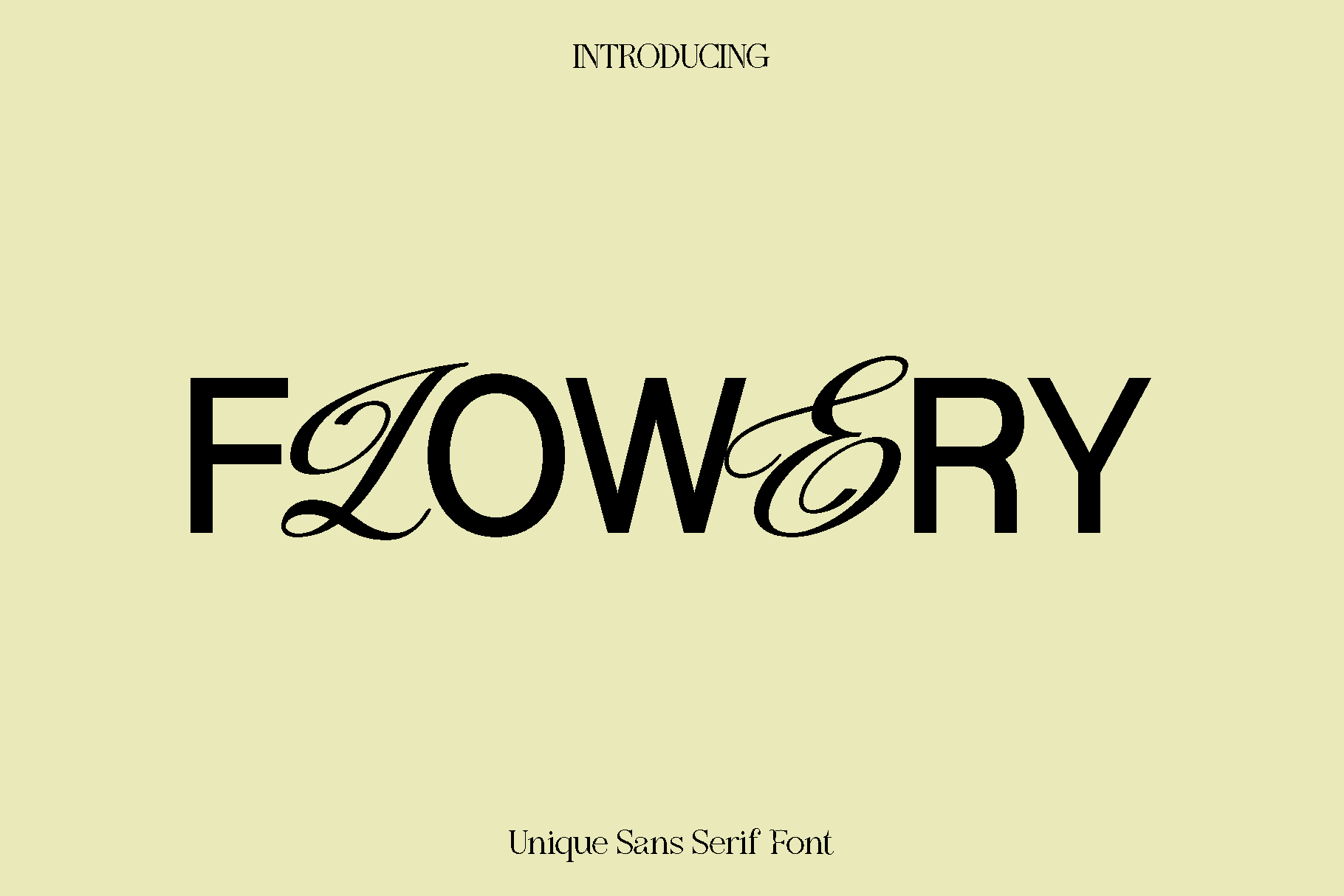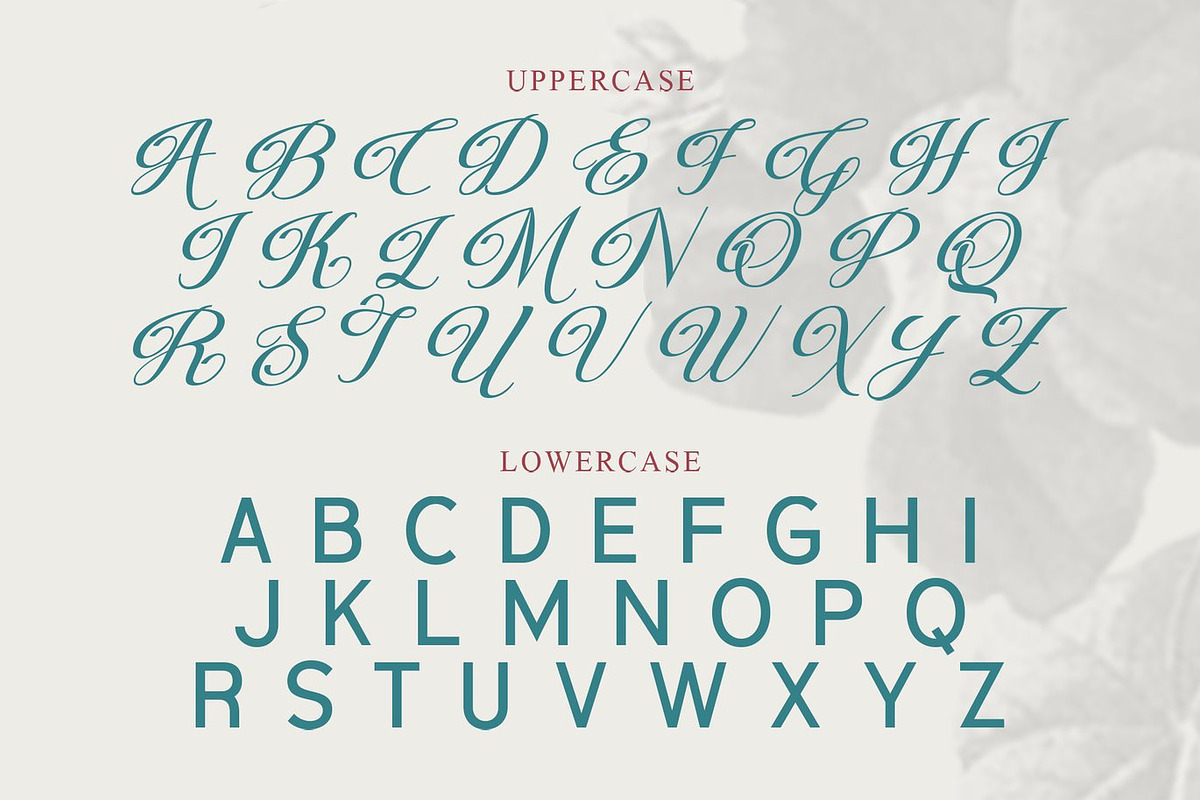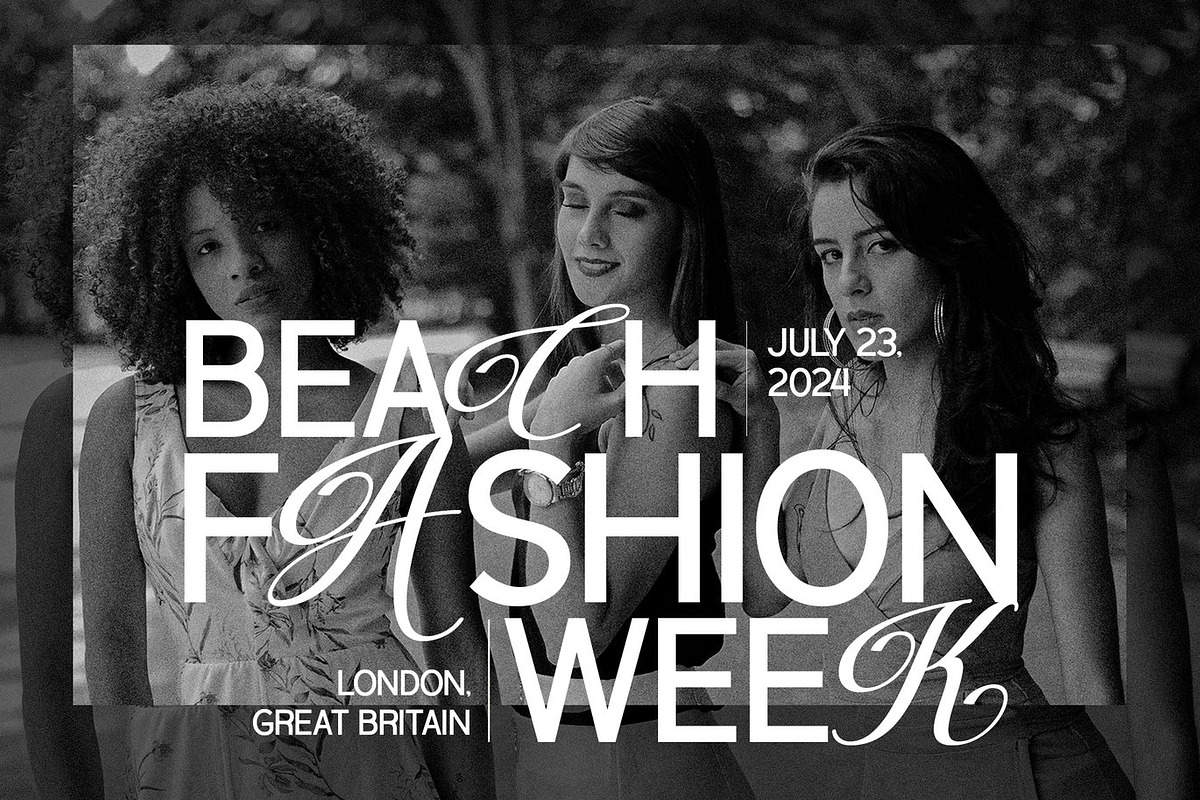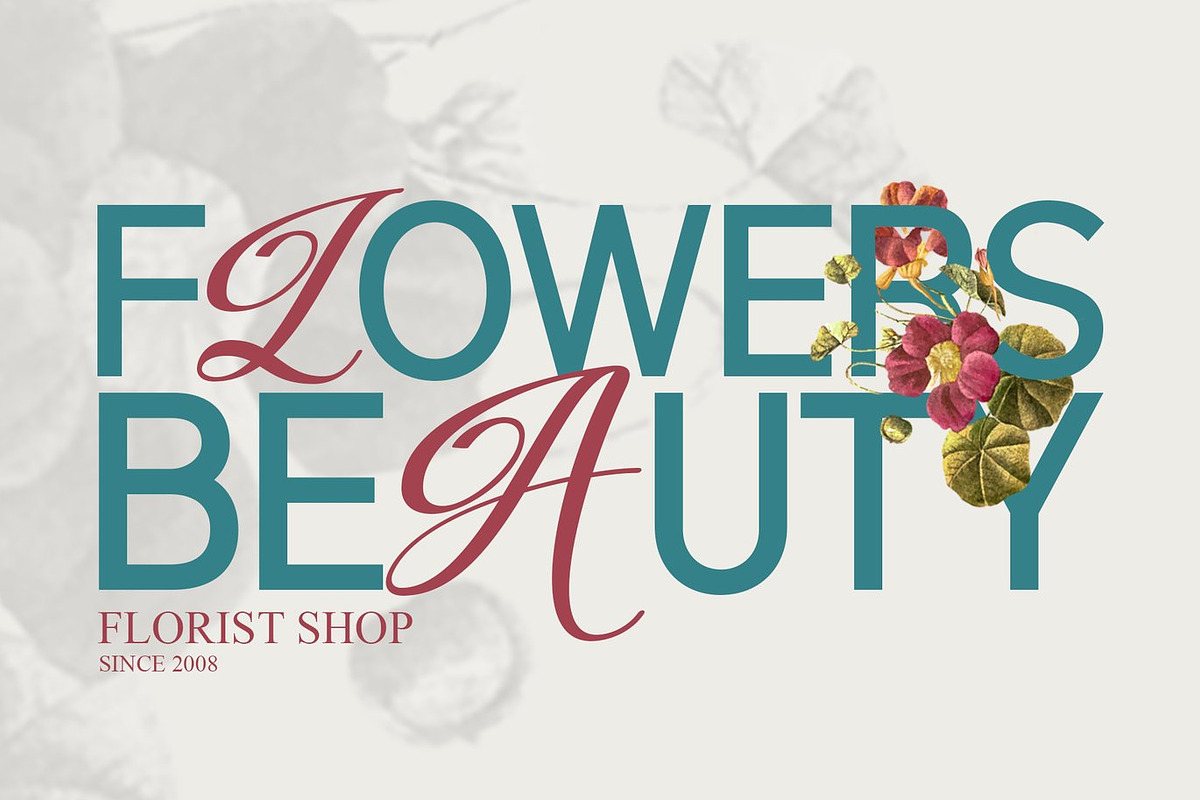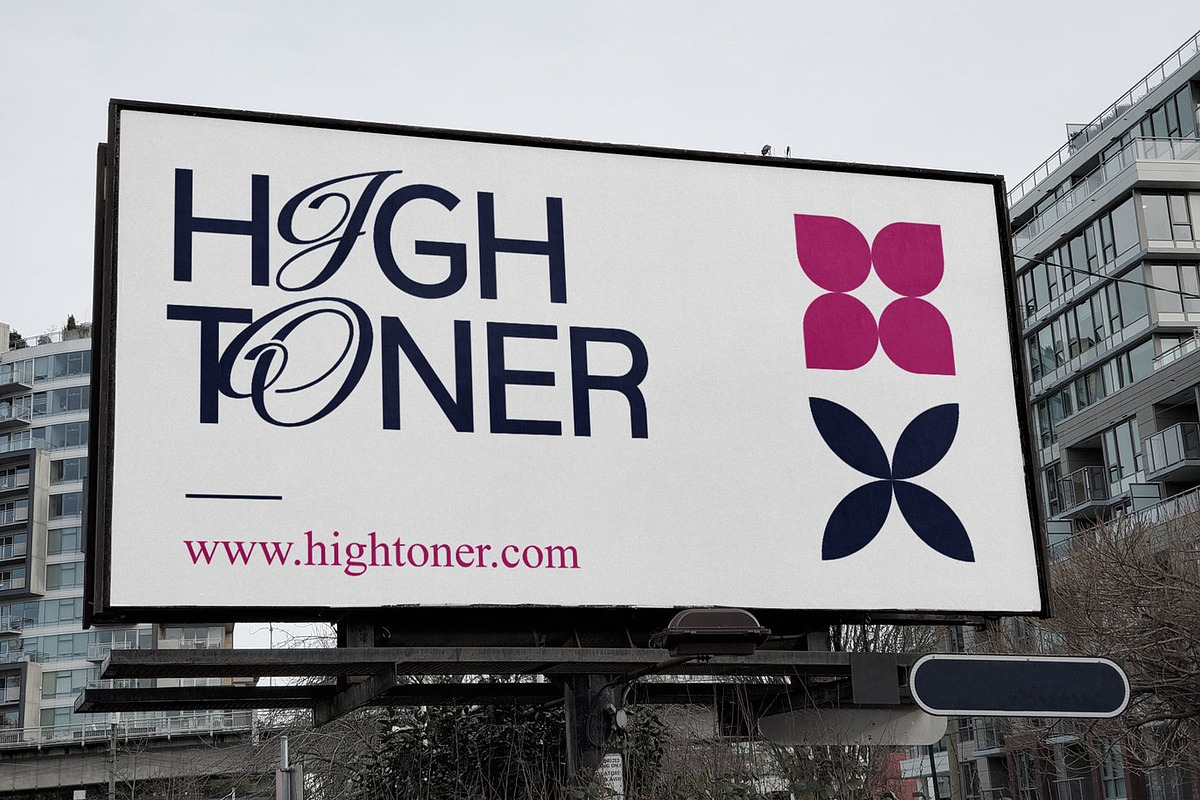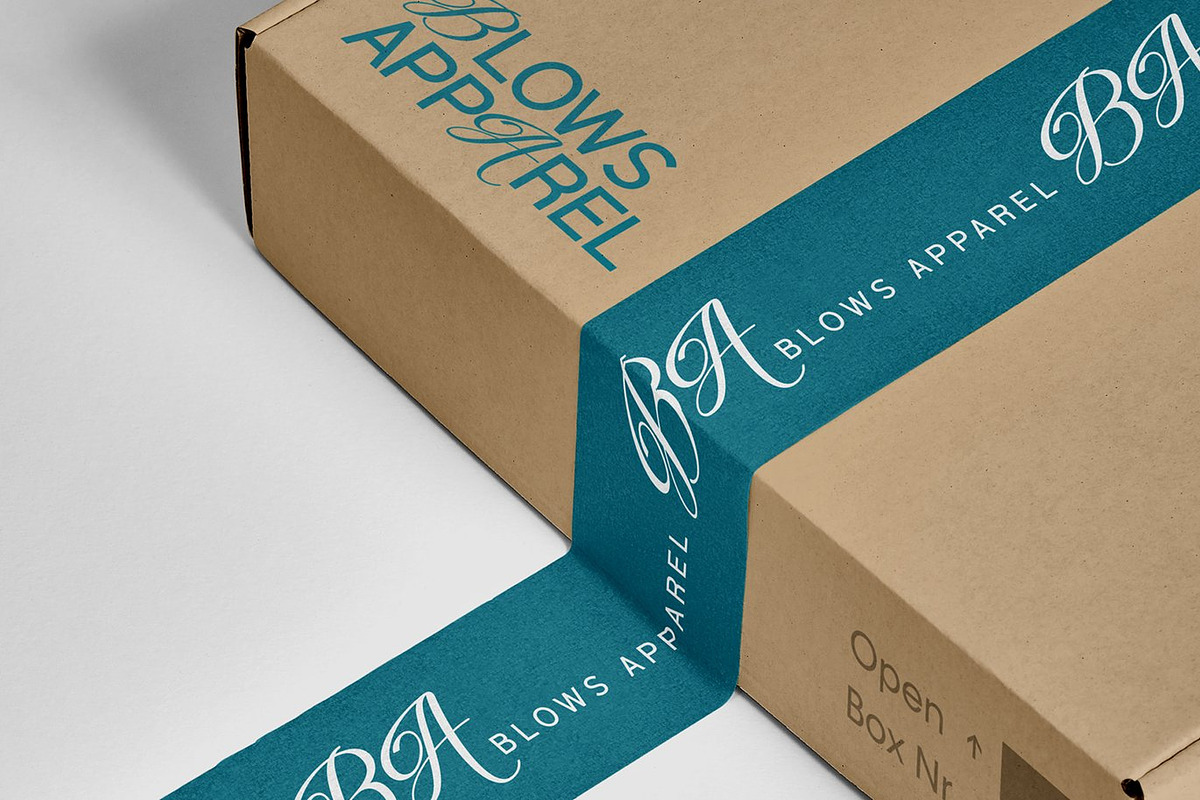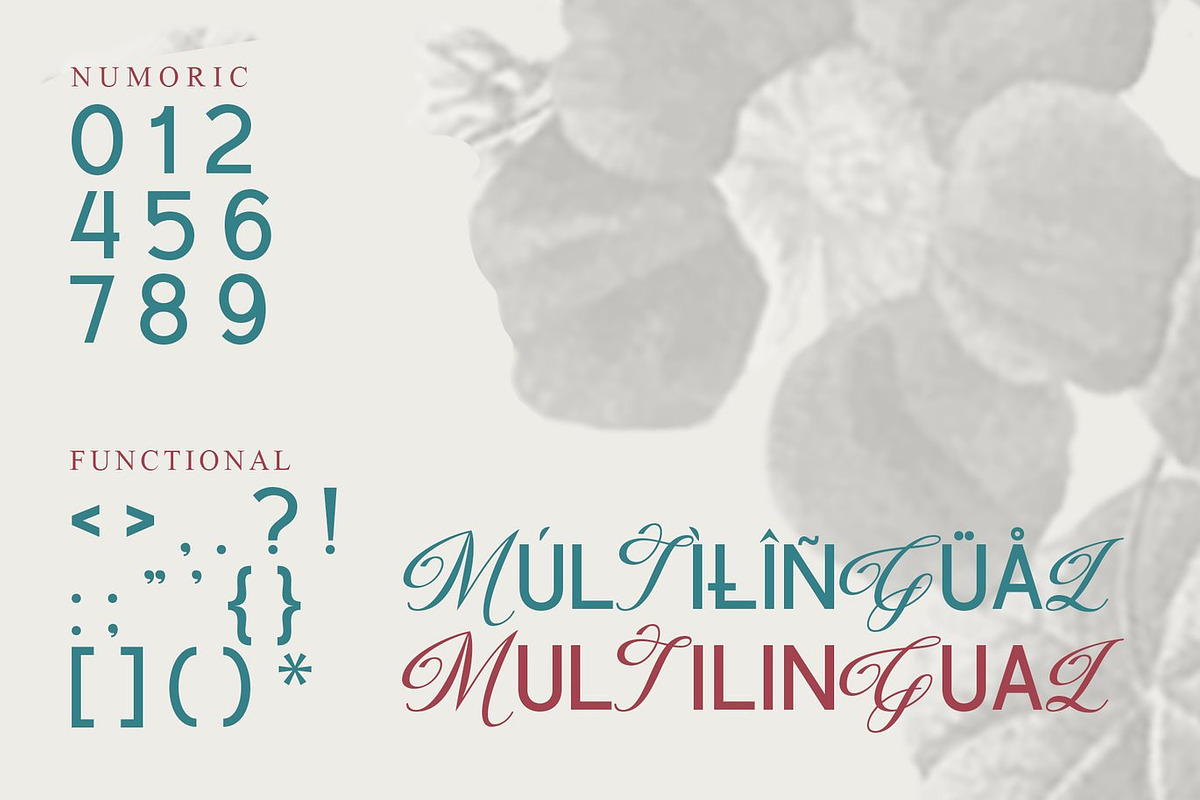
Flowery Unique Sans Serif Font
Flowery is a graceful sans serif display font designed to capture timeless femininity with a classic and elegant touch. Inspired by delicate beauty and refined styling, Flowery combines clean modern shapes with charming alternate characters that bring personality and softness to every word. Its balanced letterforms create a sophisticated visual rhythm, making it perfect for designs that need both elegance and warmth.
This font truly shines in projects that celebrate style and creativity. Flowery is ideal for logos, branding, wedding invitations, stationery, beauty and fashion campaigns, social media content, product packaging, and editorial layouts. Whether used for bold headlines or subtle decorative typography, it adds a polished and romantic atmosphere that feels inviting and stylish.
Flowery was created for designers who want to express elegance without sacrificing clarity. The alternate stylistic details provide flexibility, allowing you to craft unique compositions that feel bespoke and refined. From luxury branding to personal creative projects, Flowery enhances visual storytelling with a soft yet confident presence.
Let Flowery bring charm, sophistication, and a feminine spirit to your designs, helping your work stand out with beauty and grace across both print and digital media.
Flowery Font Features:
• Uppercase and lowercase characters
• Numerals and functional punctuation
• Beautiful alternate stylistic characters
• Multilingual support